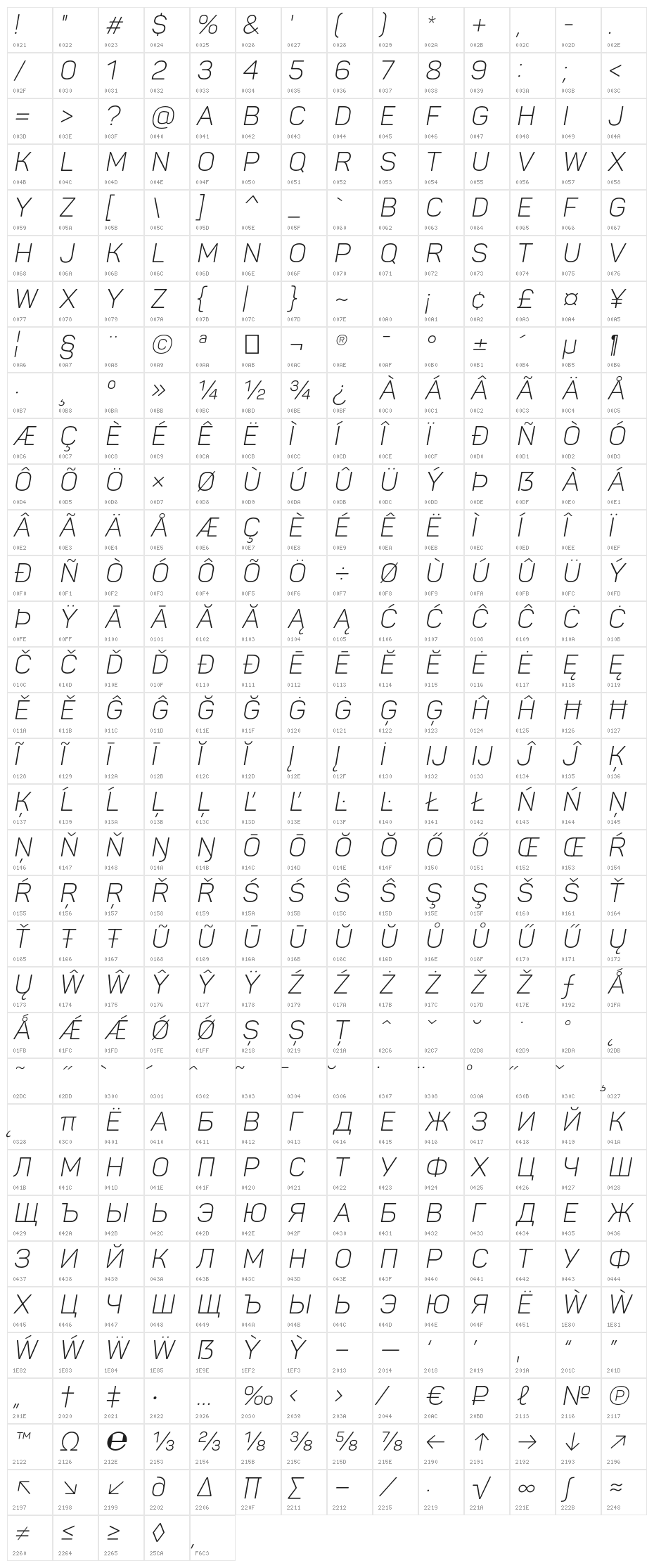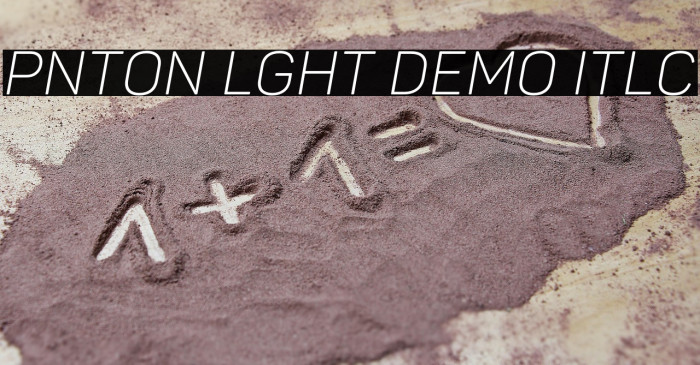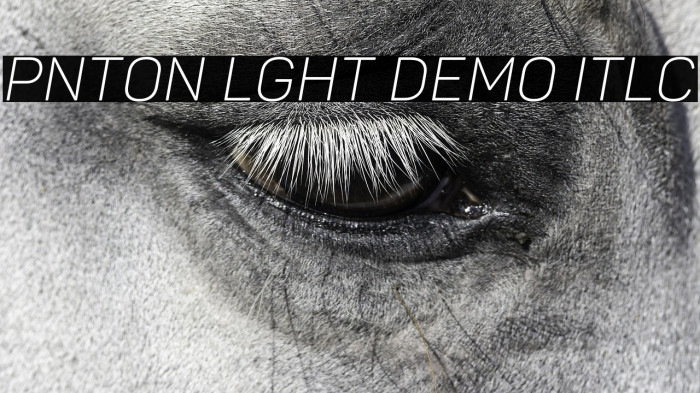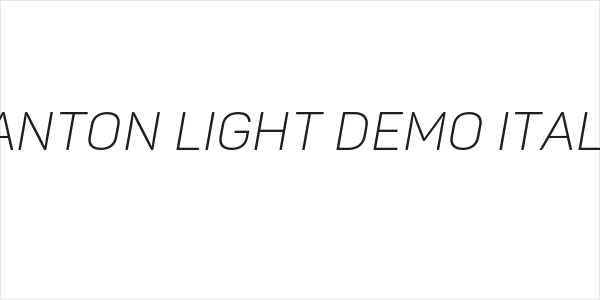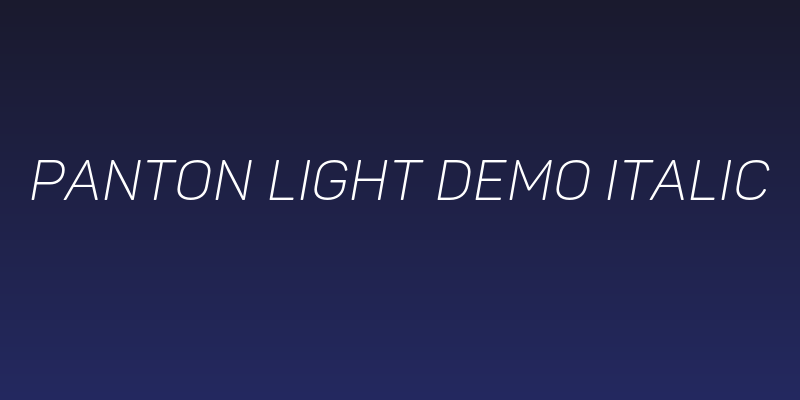
Panton Light Demo Italic Font
Panton Light Demo Italic Description
This font features a sleek and modern design with a light weight and italic style. The characters are slightly slanted, giving a sense of motion and elegance. The strokes are consistent and smooth, with a uniform thickness that provides a clean and sophisticated appearance. The spacing between characters is balanced, ensuring readability while maintaining a stylish look. This font is versatile, suitable for both digital and print media, and can enhance the visual appeal of any project with its contemporary aesthetic.